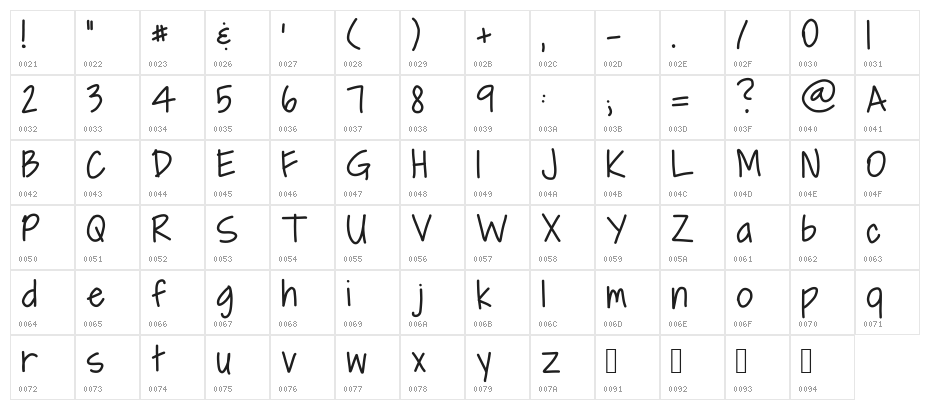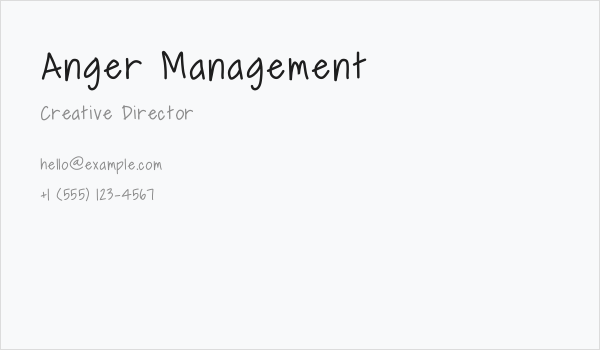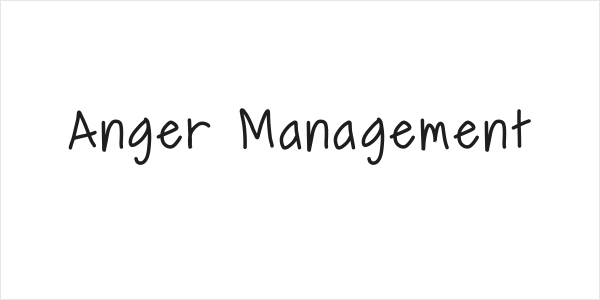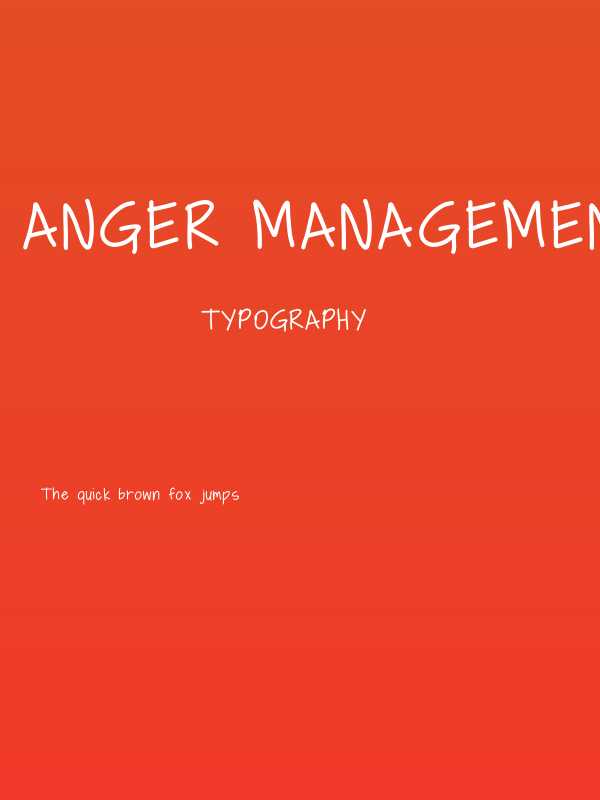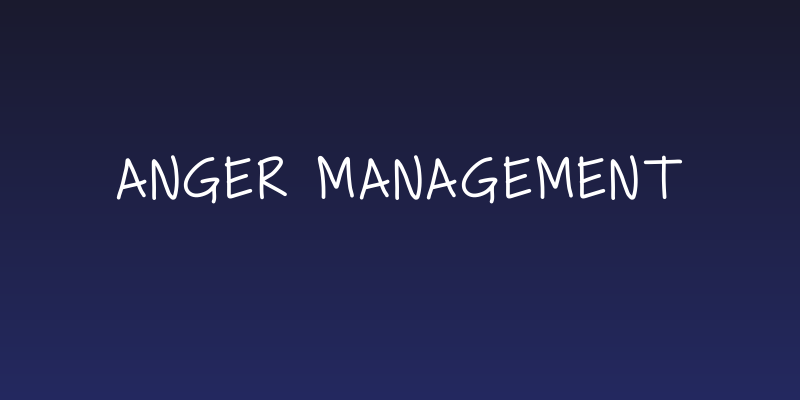
Anger Management Font
| Style général | Casual, Playful |
| Cas d'utilisation | Headlines, Informal text, Creative projects |
| Projets proposés | Ideal for greeting cards, children's books, casual branding, and social media graphics. |